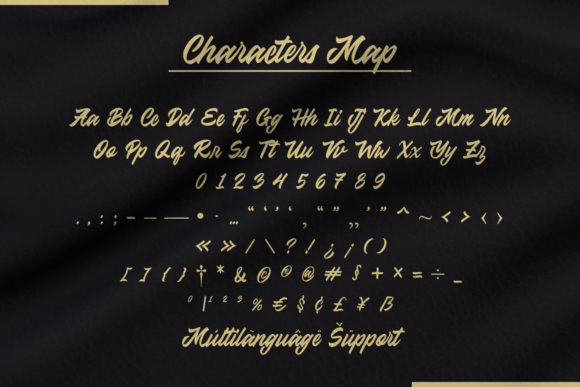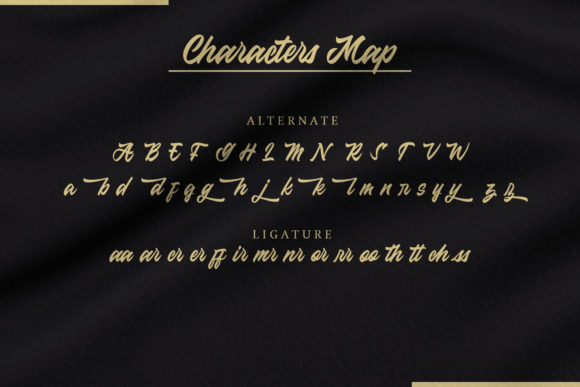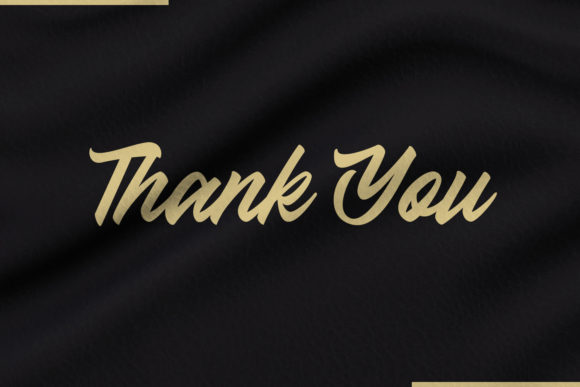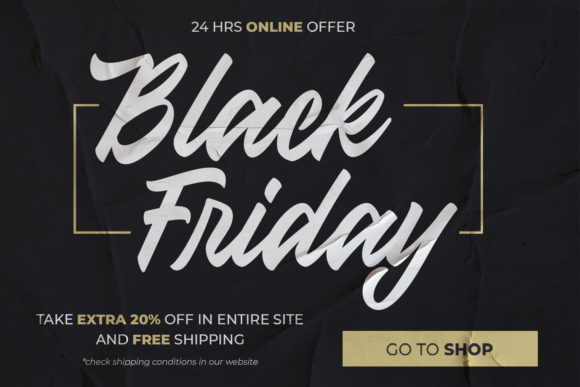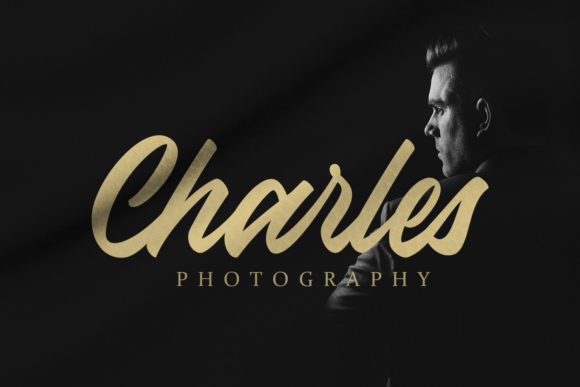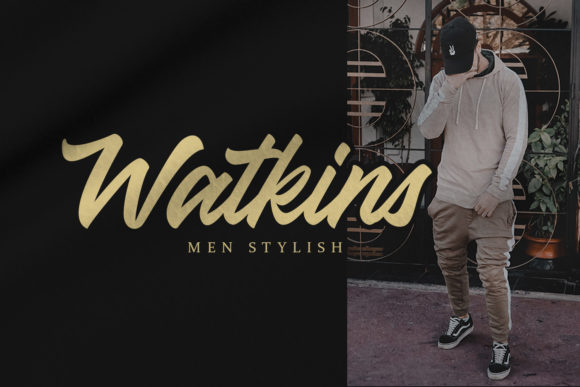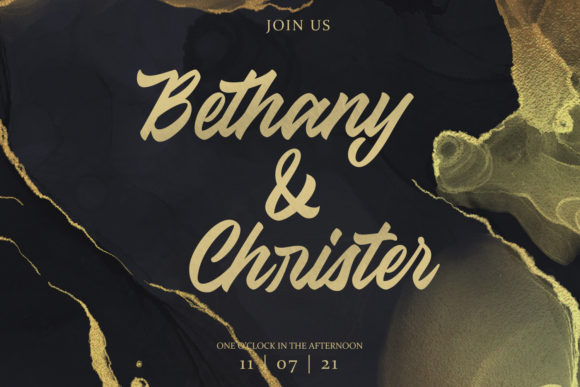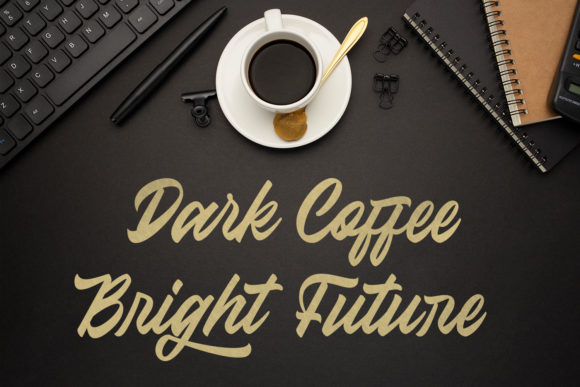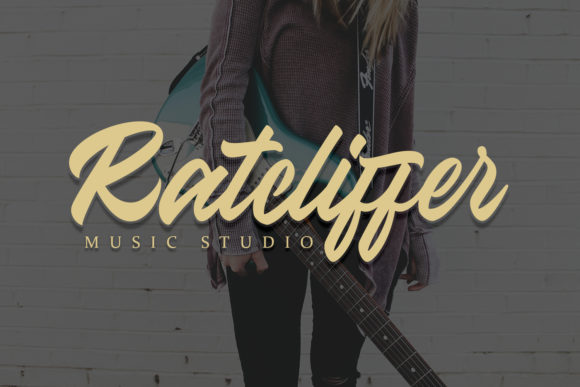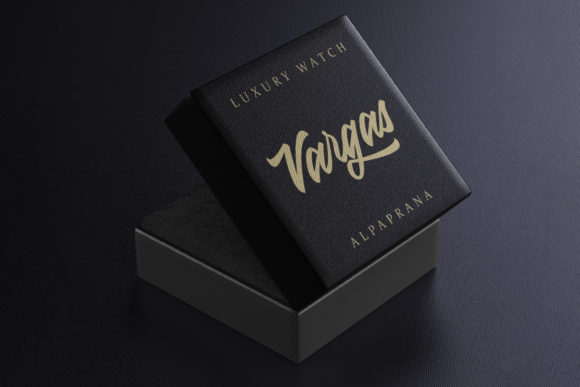
Ratcliffer Font
About Ratcliffer Font
Ratcliffer is a stunning modern styled script font. This font reads as strong, confident, and dynamic and can add tons of nostalgic character to your designs.